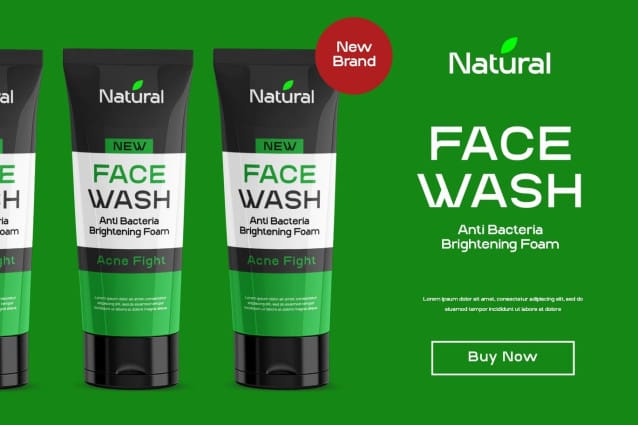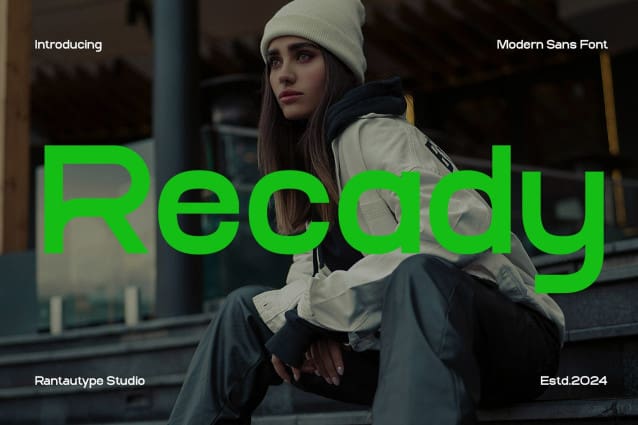
Recady Font
Recady Font is a sans serif font with a modern aesthetic inspired by geometric and neo-grotesque visual design. Recady has the contrast, power of a screen and ease of readability. We give this font a modern, trendy, elegant, sporty, futuristic, minimalist and easy to use look.
Recady Font is a perfect choice for any creative, chic and lifestyle design such as logotype, advertisements, watermark on a photograph, stationery, branding project, display and magazine, invitation, corporate branding, product design, label, commercial project and many other projects with a modern or industrial touch.